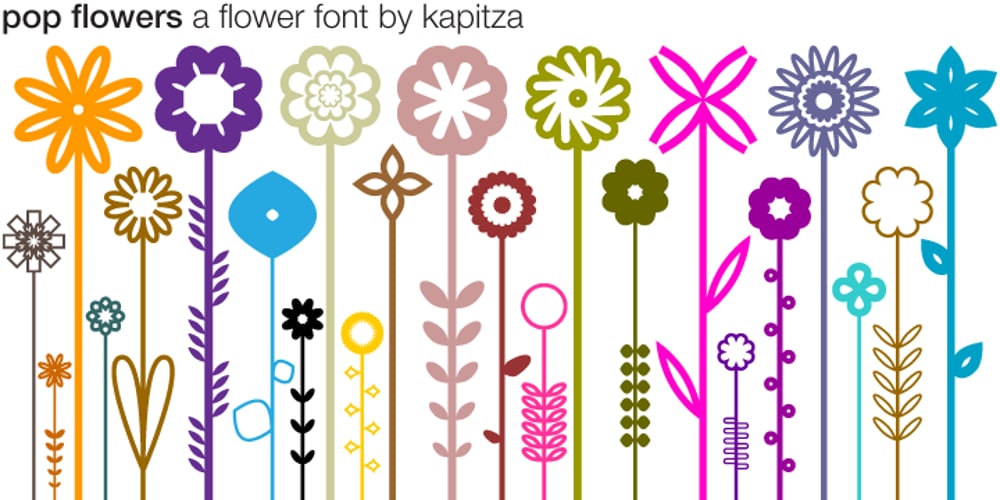
Pop Flowers Font Family was designed by published by kapitza. Pop Flowers contains 1 styles and family package options. Pop Flowers is set of 64 cute graphic flower illustrations derived from Kapitza’s graphic pattern font Pop. Pop Flowers marks a new direction in Kapitza’s exploration of shapes in nature. While their projects such as Blossomy and We Love Nature Leaves are based on photographs of plants and flowers, Pop Flowers is constructed of graphic shapes. In moving away from ‘realistic’ forms, Pop Flowers creates a reality of its own that evokes a magical atmosphere.